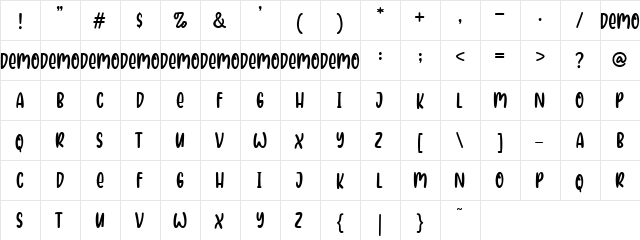
Love in space Demo Regular
| Foundry | Epiclinez |
| Designer | Aldy Sidik |
Design Context for Love in space Demo Typeface
Love in space Demo is a composed and adaptable typeface that performs quietly and consistently across a wide range of design contexts.